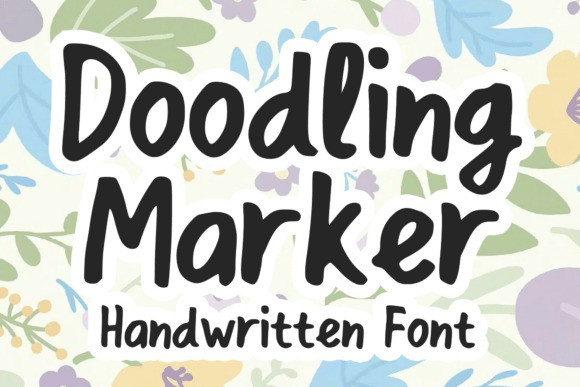
Doodling Marker Font
Doodling Marker Font , a whimsically creative hand-lettered marker font.
Ready to transform and amplify your design work, this font is a versatile tool for diverse projects. Stretch your creativity by using Doodling Marker for inventive sticker concepts, personalized t-shirt designs, or distinctive logo creations.
It’s also the perfect font for attention-grabbing magazine and book covers, comics, and cartoon illustrations. Immerse yourself in the playful charm of Doodling Marker and add a dash of carefree cool to your designs.